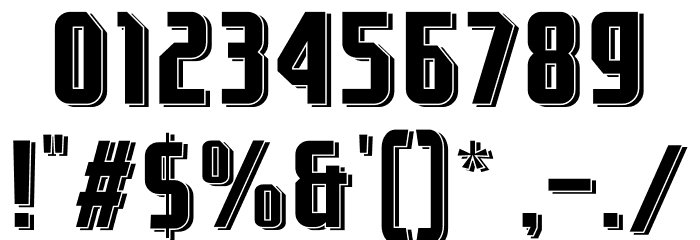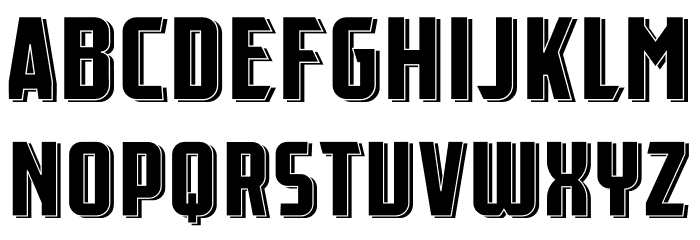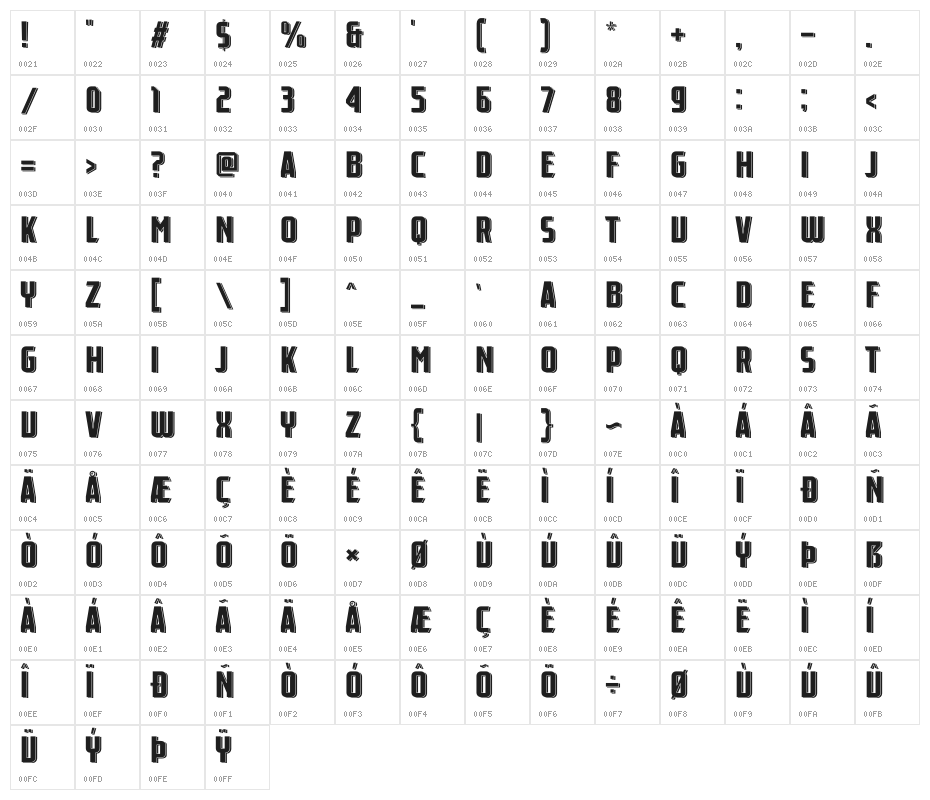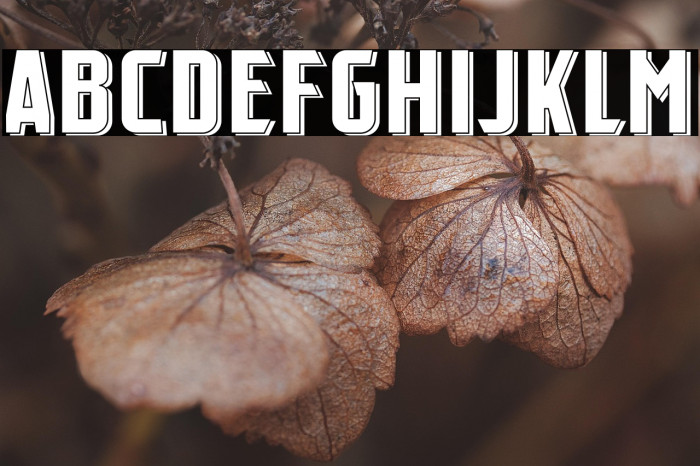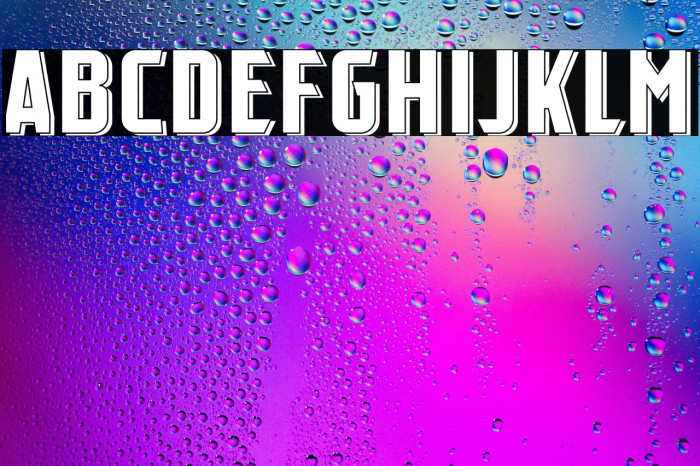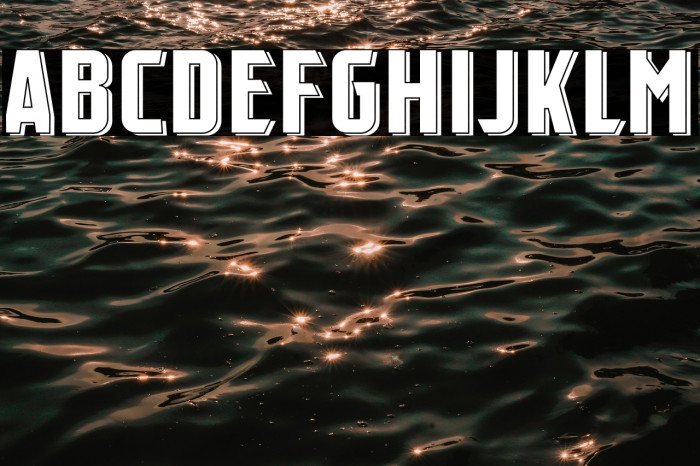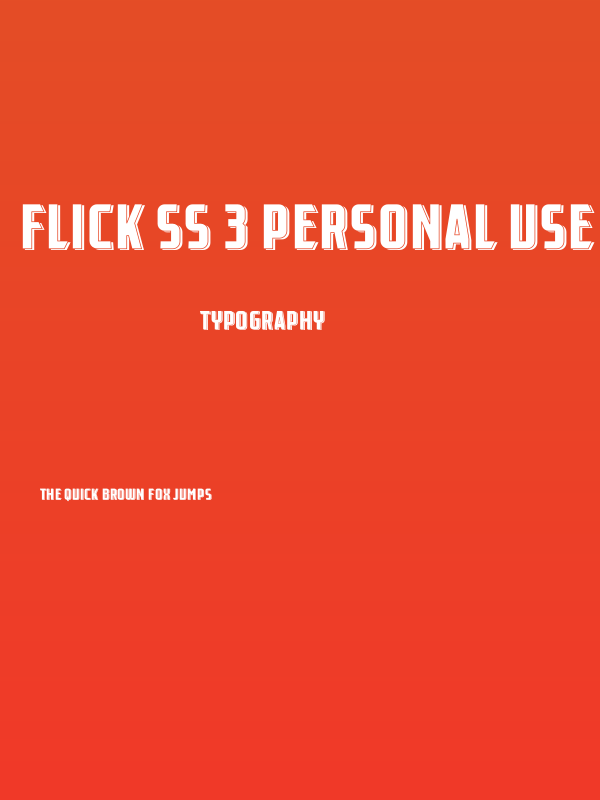
Flick SS 3 Personal Use Font
This font features a bold and striking design with a three-dimensional effect, giving each character a sense of depth and shadow. The letters are uppercase and have a geometric, angular style that conveys a sense of strength and modernity. The numbers and special characters follow the same bold and structured design, ensuring consistency across all elements. The font's unique style makes it stand out, with sharp edges and a dynamic presence that captures attention.